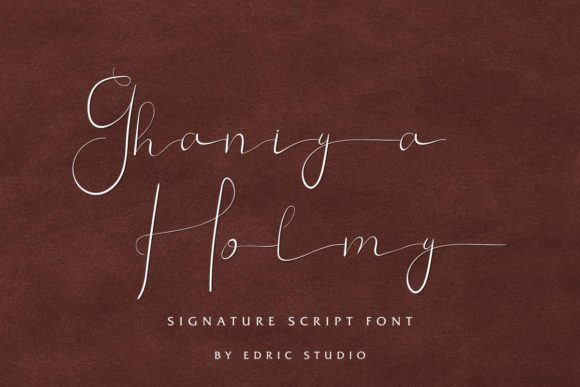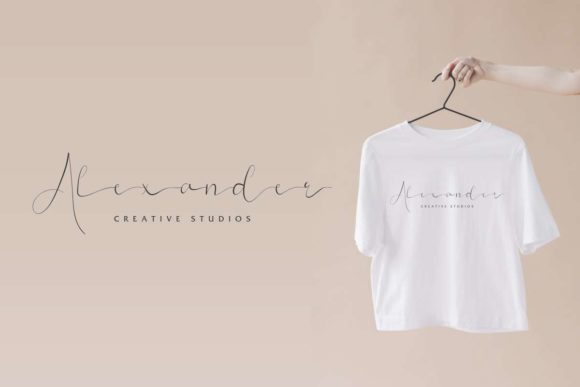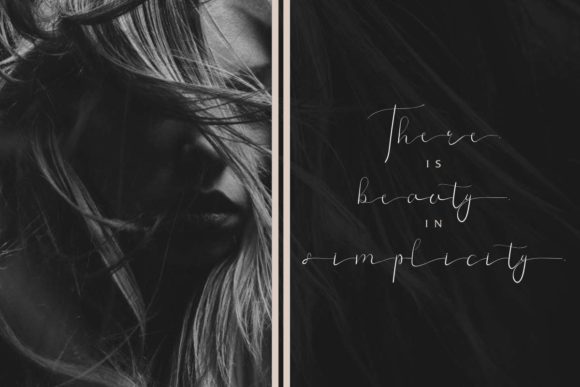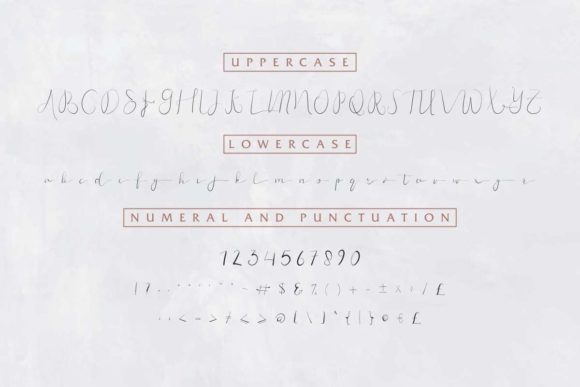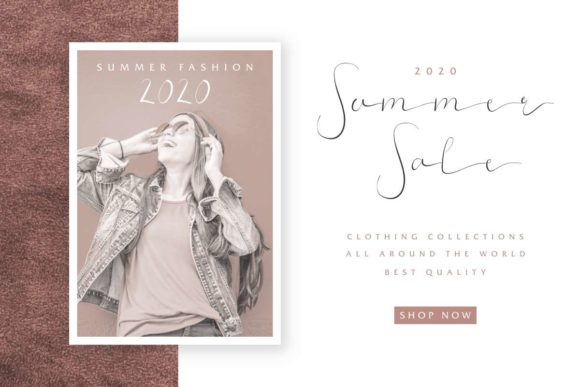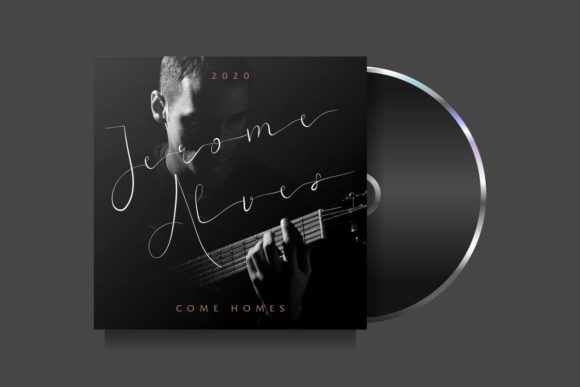
Introduction to Ghaniya Holmy Font
Have you ever stared at a blank canvas, waiting for inspiration to strike? For designers, this moment can be a daily occurrence. But what if we told you there’s a secret to unlocking your creativity? Enter the enchanting Ghaniya Holmy Font, a stunning script font that’s about to revolutionize your design projects.
With its classic typography roots and unique flair, Ghaniya Holmy Font is the perfect addition to any DIY project. Whether you’re working on a high-quality logo, a transparent background design, or a creative project that needs a touch of elegance, this font is sure to impress. And the best part? It’s available for a free download, making it an invaluable design resource for any creative.
Key Features of Ghaniya Holmy Font
- High-quality font with a transparent background, ideal for creative projects requiring a clean and minimalist design.
- Unique characteristics include a modern and elegant aesthetic, perfect for use in logos, headings, and body text.
Honest Review: Ghaniya Holmy Font
I recently stumbled upon the Ghaniya Holmy Font and was excited to try it out for my next creative project. As a designer, I’m always on the lookout for high-quality design resources that can elevate my work.
The Ghaniya Holmy Font did not disappoint. I was impressed by its clean and elegant design, perfect for a variety of creative projects. The transparent background made it easy to integrate into my design without any issues.
- The font may not be suitable for formal or professional projects
- Some users may find the font too simple or generic
Overall, I’m impressed with the Ghaniya Holmy Font and would recommend it for creative projects. While it may have some limitations, its high-quality design and transparent background make it a valuable design resource.
Getting the Most Out of Ghaniya Holmy Font
To get the most out of the Ghaniya Holmy Font, use it in conjunction with a high-quality image or background. This font is perfect for creating visually appealing designs, and its transparent background makes it easy to use with any design element.
The Ghaniya Holmy Font is perfect for a variety of creative projects, including graphic design, digital art, and typography. Its high-quality design and transparent background make it an excellent choice for any project that requires a unique and eye-catching font.